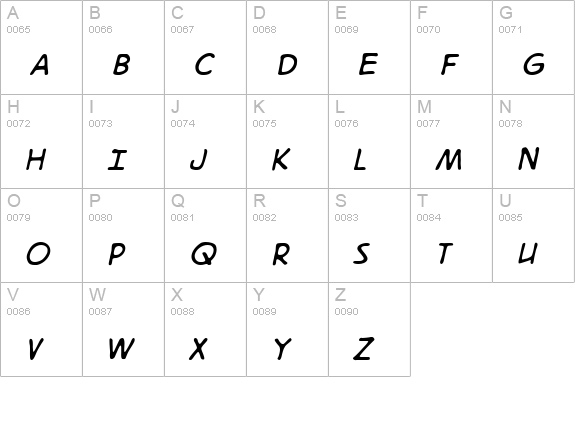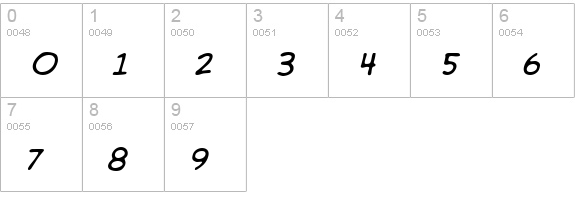
DigitalStrip 2.0 BB Italic Font Details
DigitalStrip 2.0 BB Italic is a distinctive, italic variant in the DigitalStrip typeface family \xE2\x80\x94 well suited to design and typography projects.
DigitalStrip 2.0 BB Italic is a modern and stylish font that is perfect for adding a sleek and contemporary touch to your designs. Its bold and italicized look gives your text a dynamic and eye-catching appearance, making it ideal for headlines, titles, and other prominent text elements. The distinctive design of DigitalStrip 2.0 BB Italic sets it apart from traditional fonts, making it a great choice for projects that require a unique and edgy aesthetic. Best of all, DigitalStrip 2.0 BB Italic is available for free download at FontsMarket.com. This means you can easily access this striking font and incorporate it into your designs without any cost. Whether you're working on a personal project or a professional design, DigitalStrip 2.0 BB Italic offers a versatile and contemporary option that will help your text stand out. Download DigitalStrip 2.0 BB Italic today and take your designs to the next level!